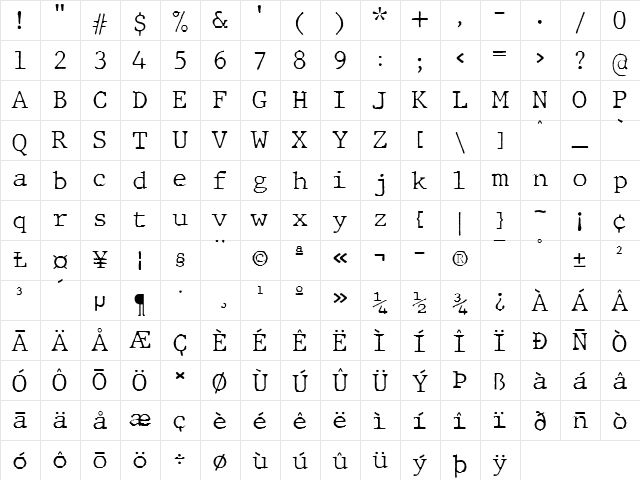
JMH Typewriter Thin
Design Context for JMH Typewriter Typeface
JMH Typewriter brings the precise, column-aligned rhythm of monospaced typography to designs that value technical clarity and systematic order. The delicate stroke weight brings airiness and refinement to layouts.
A natural fit for code editors, technical documentation, developer-focused branding, and terminal-inspired UI.